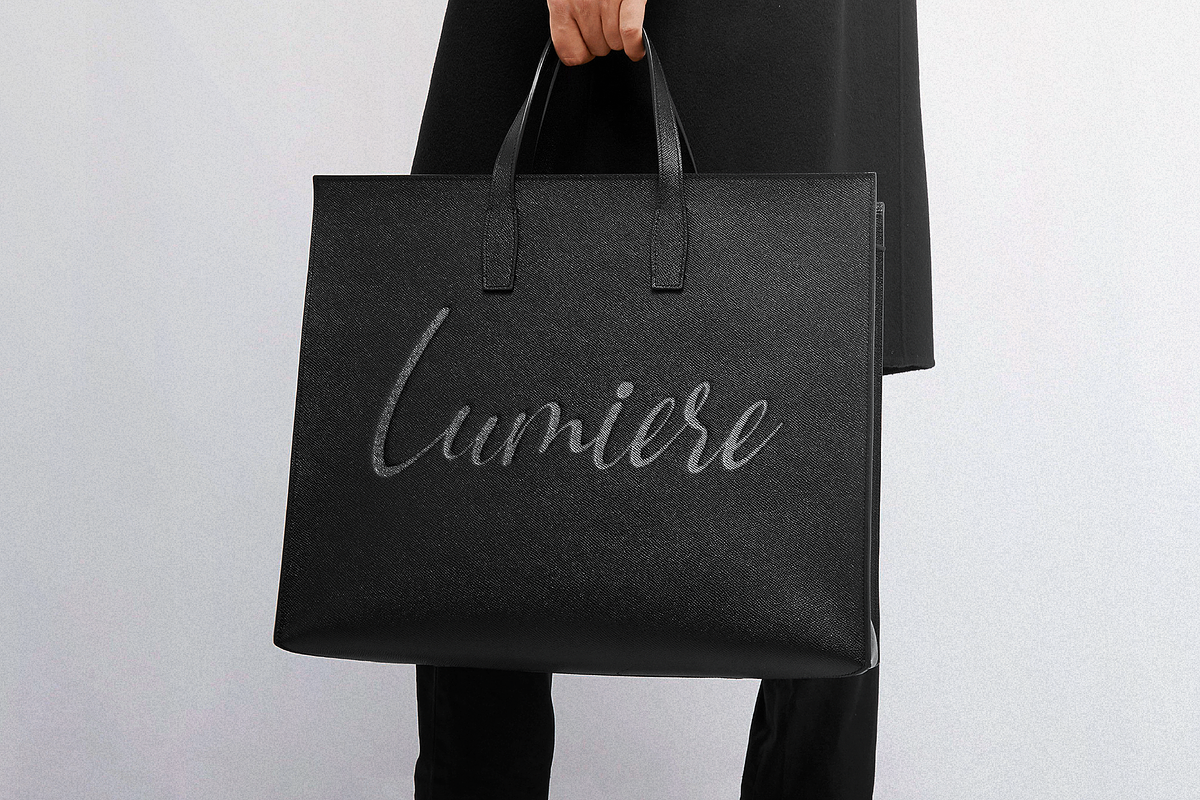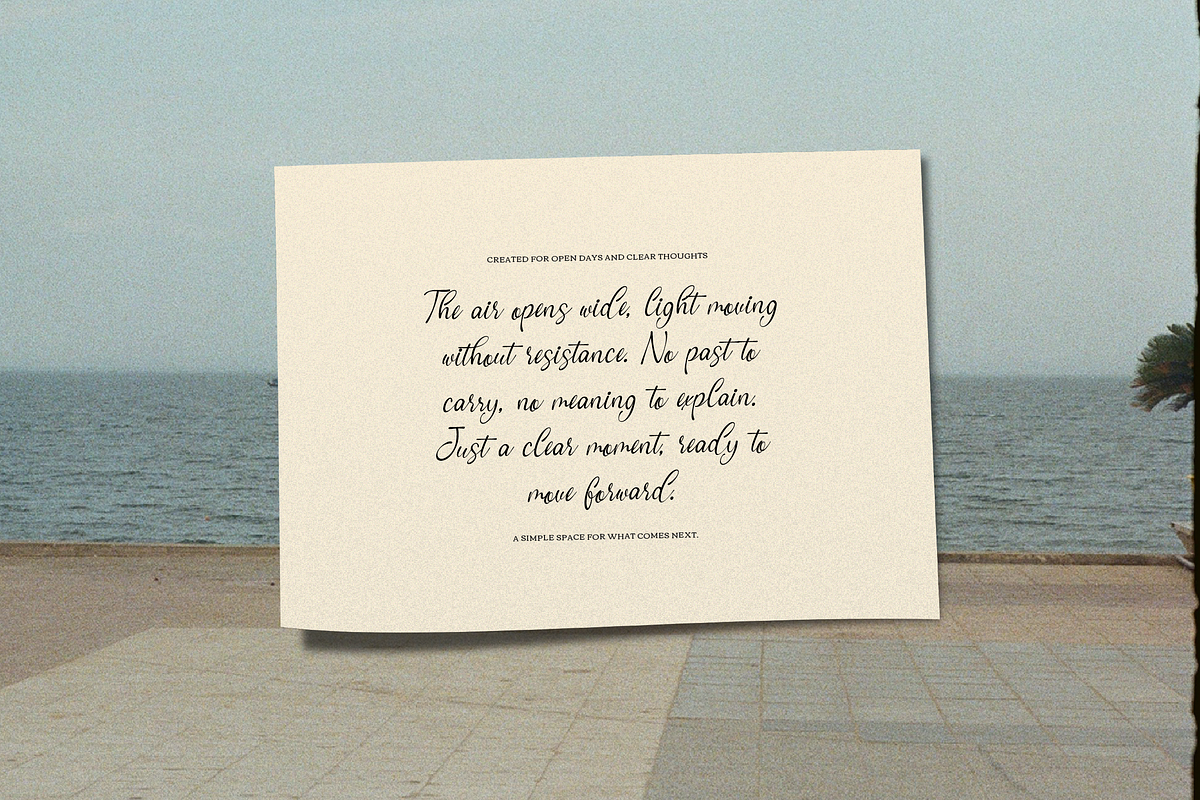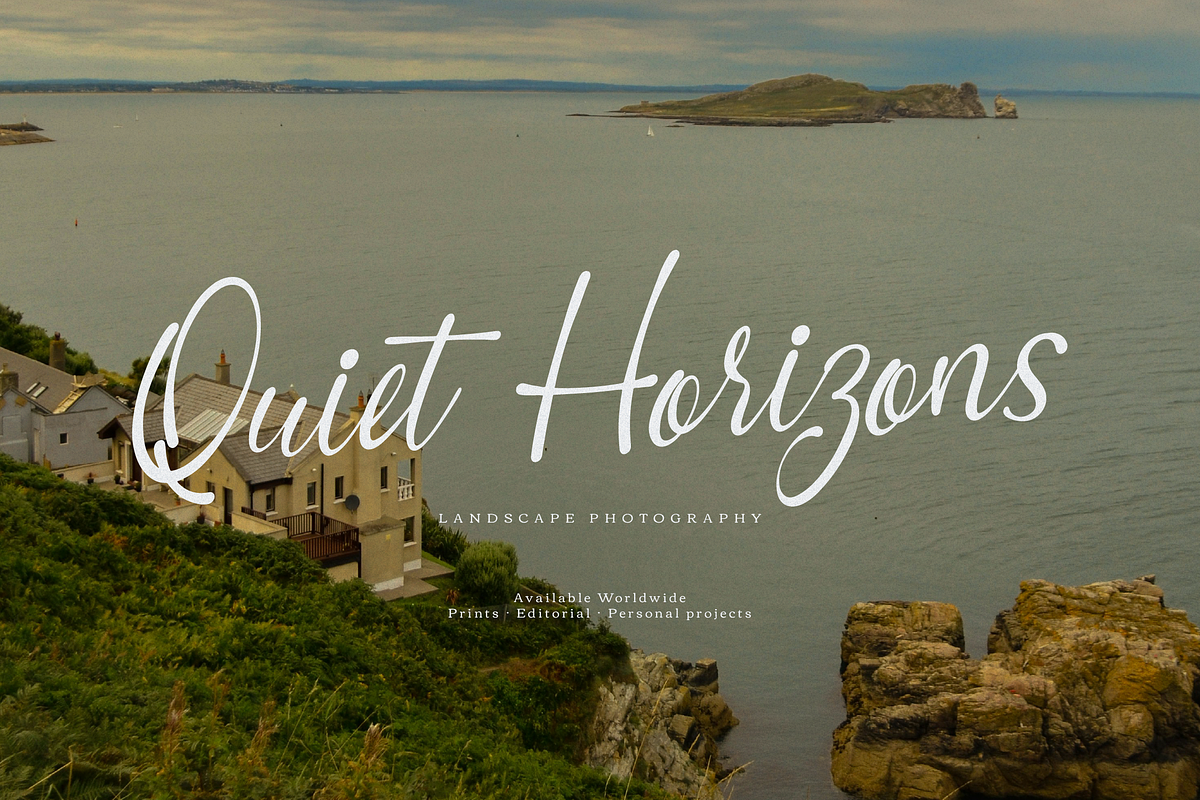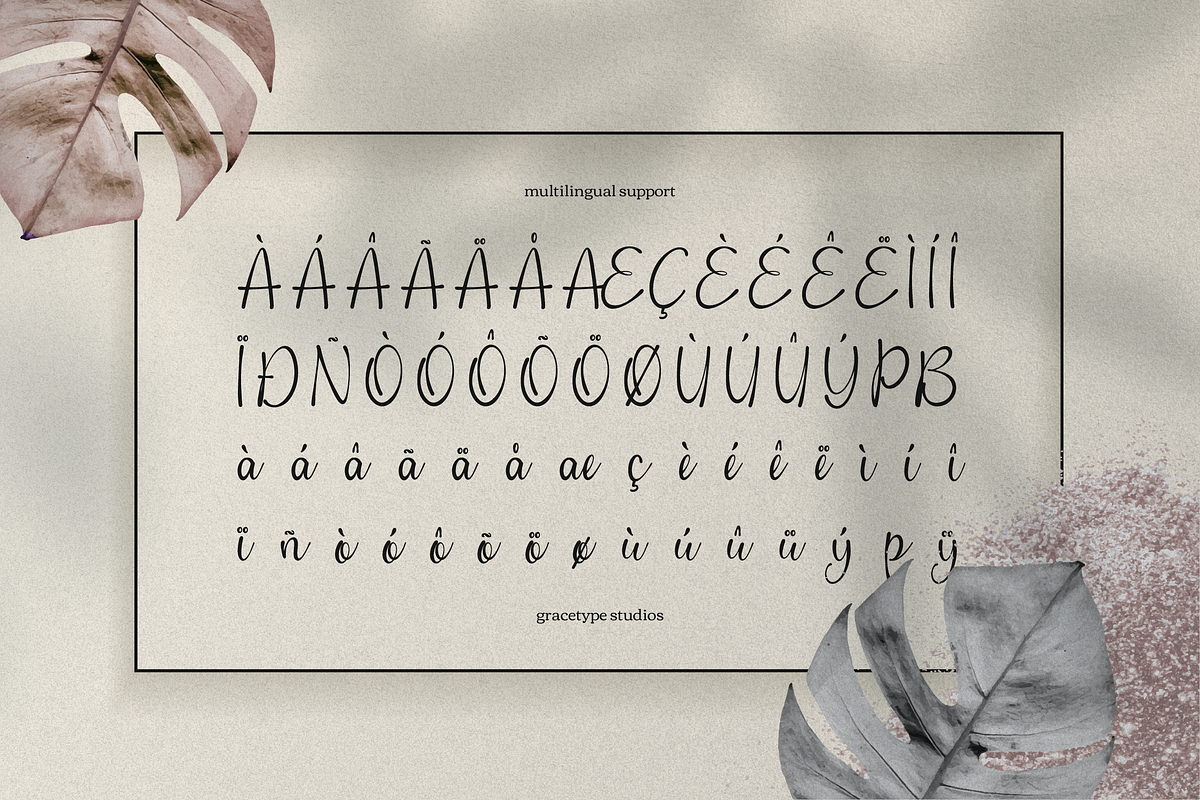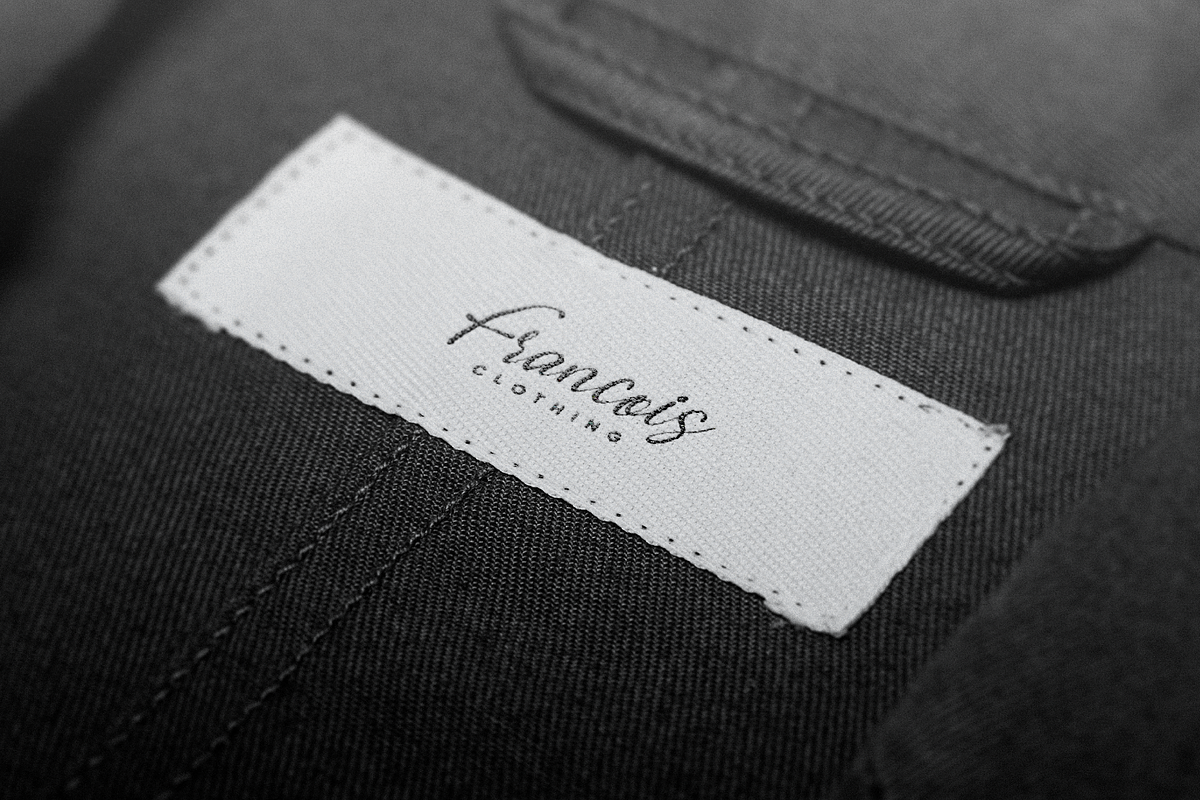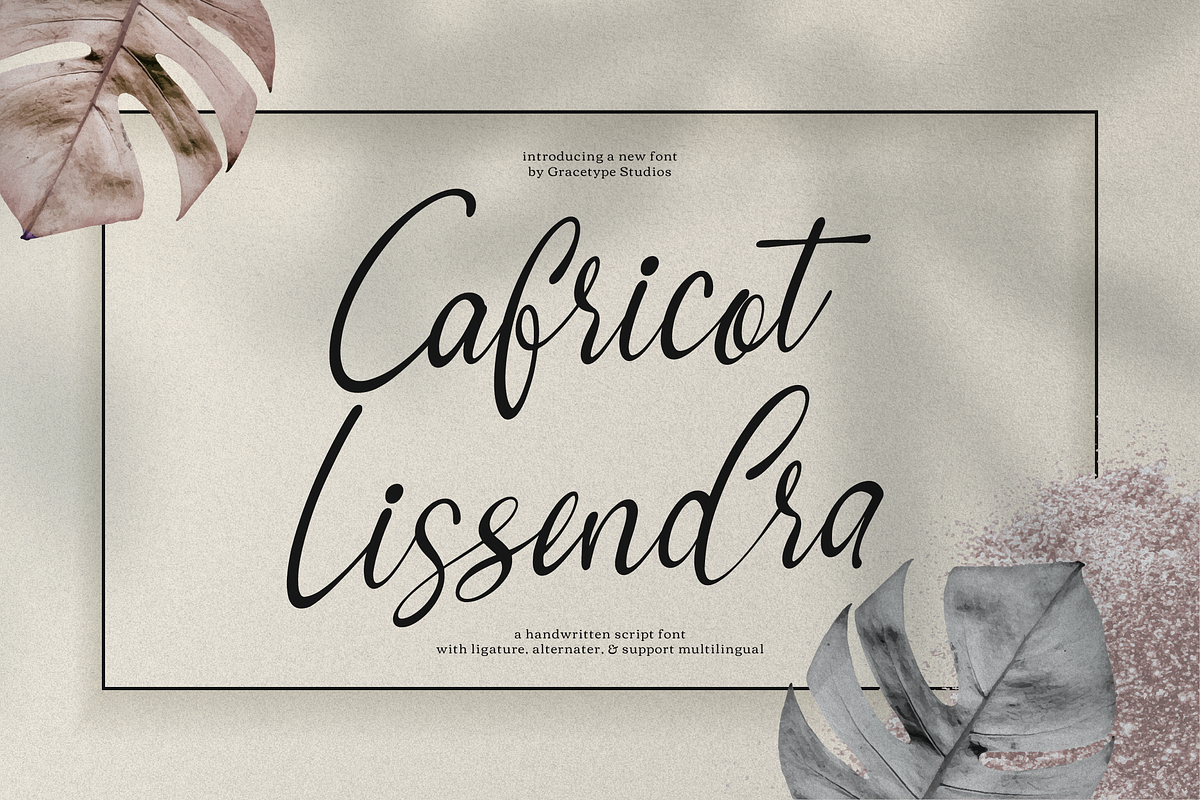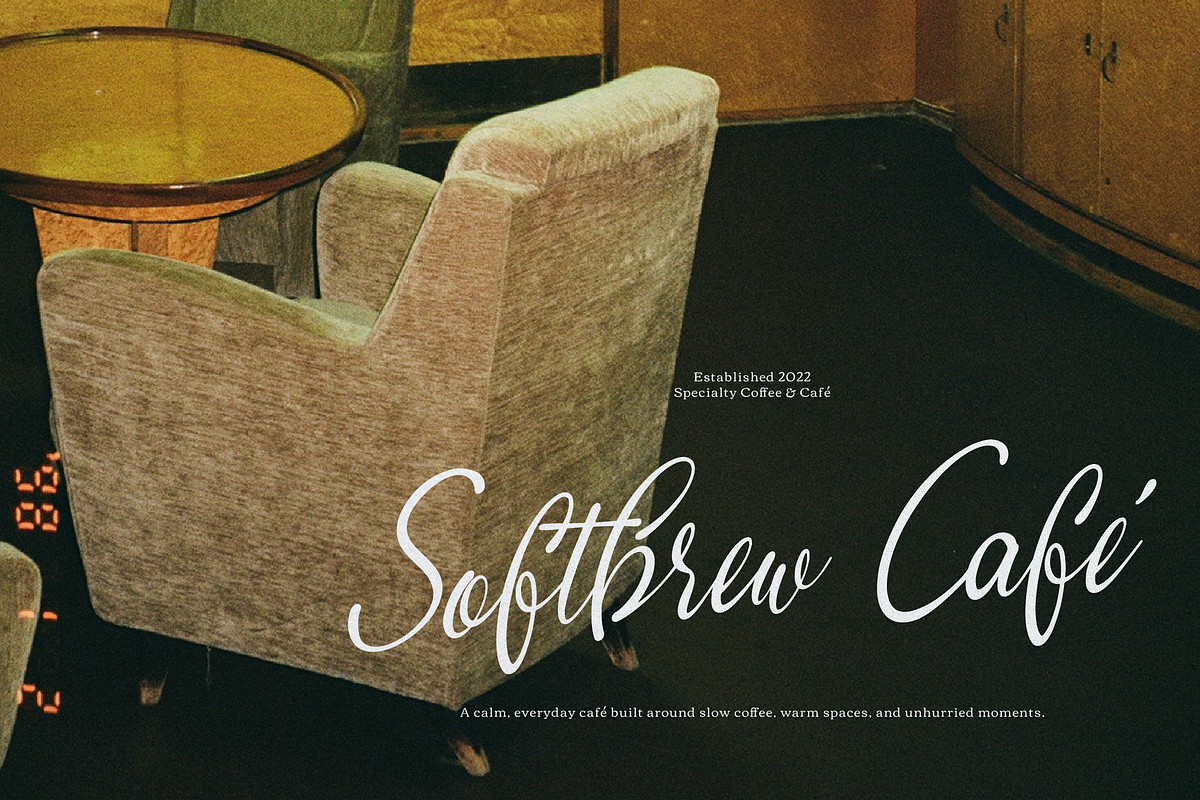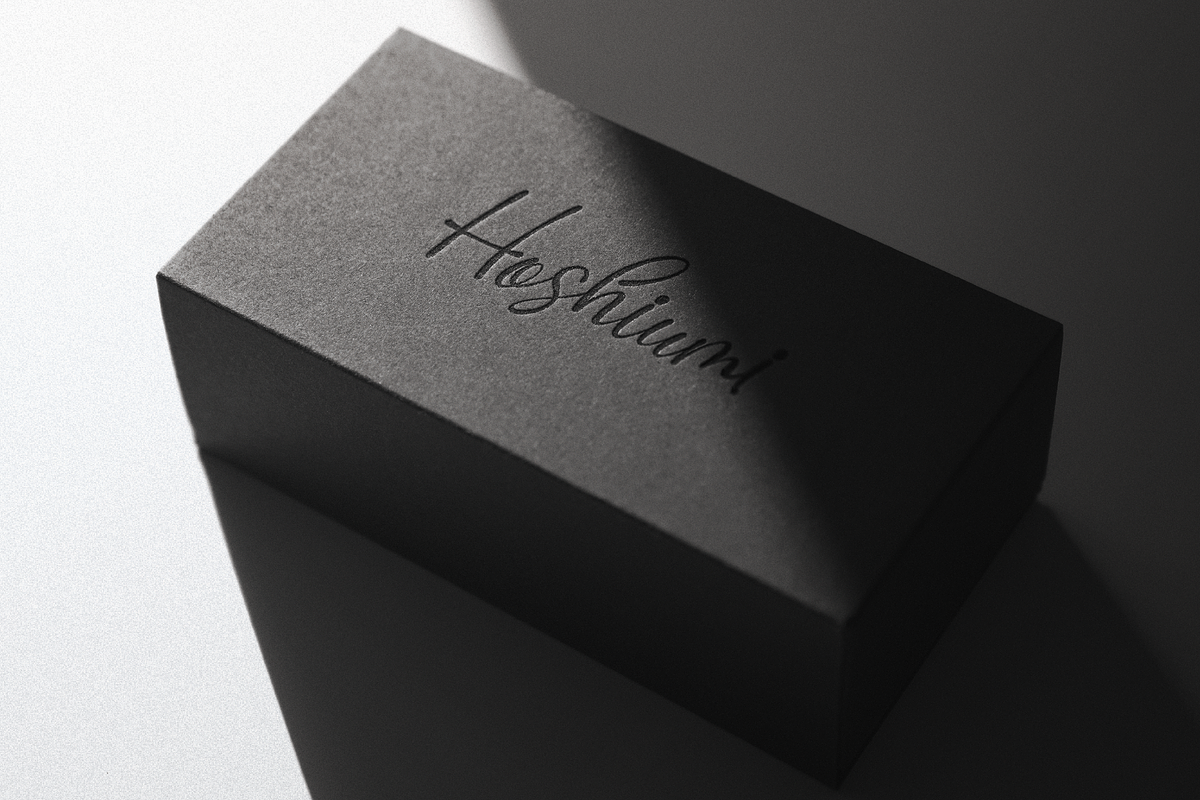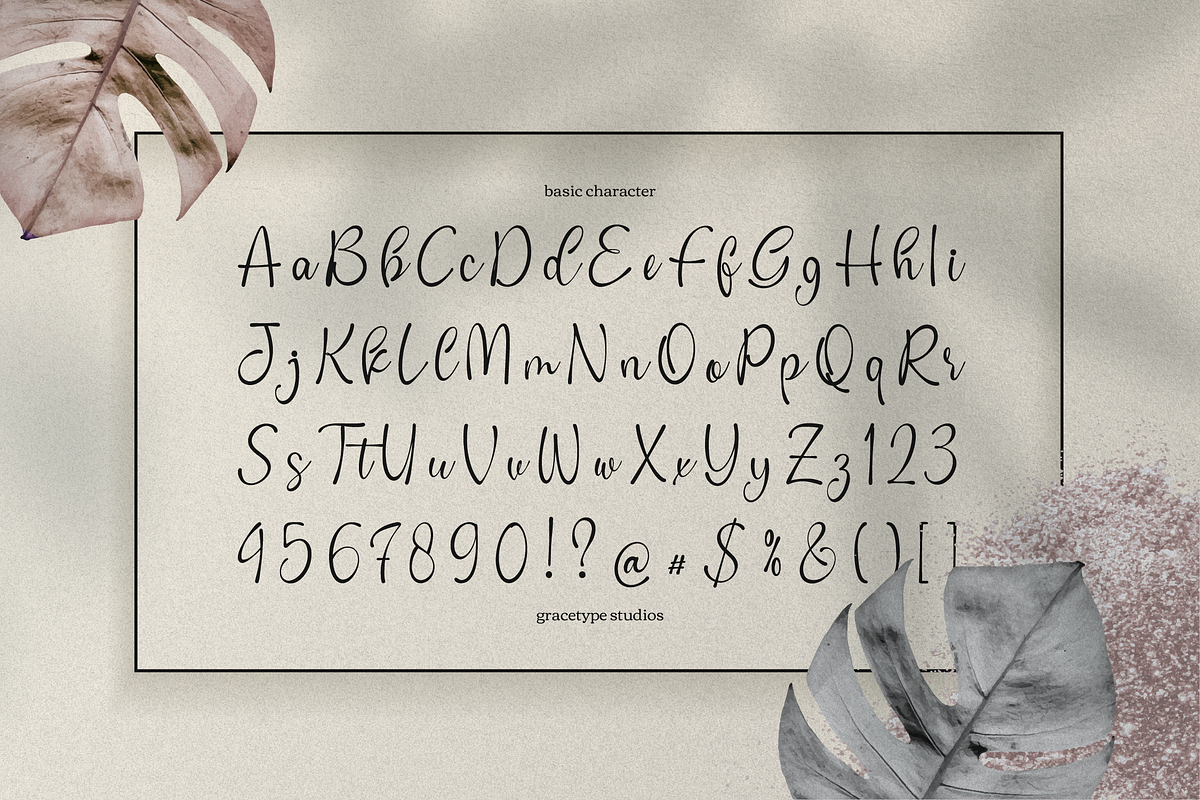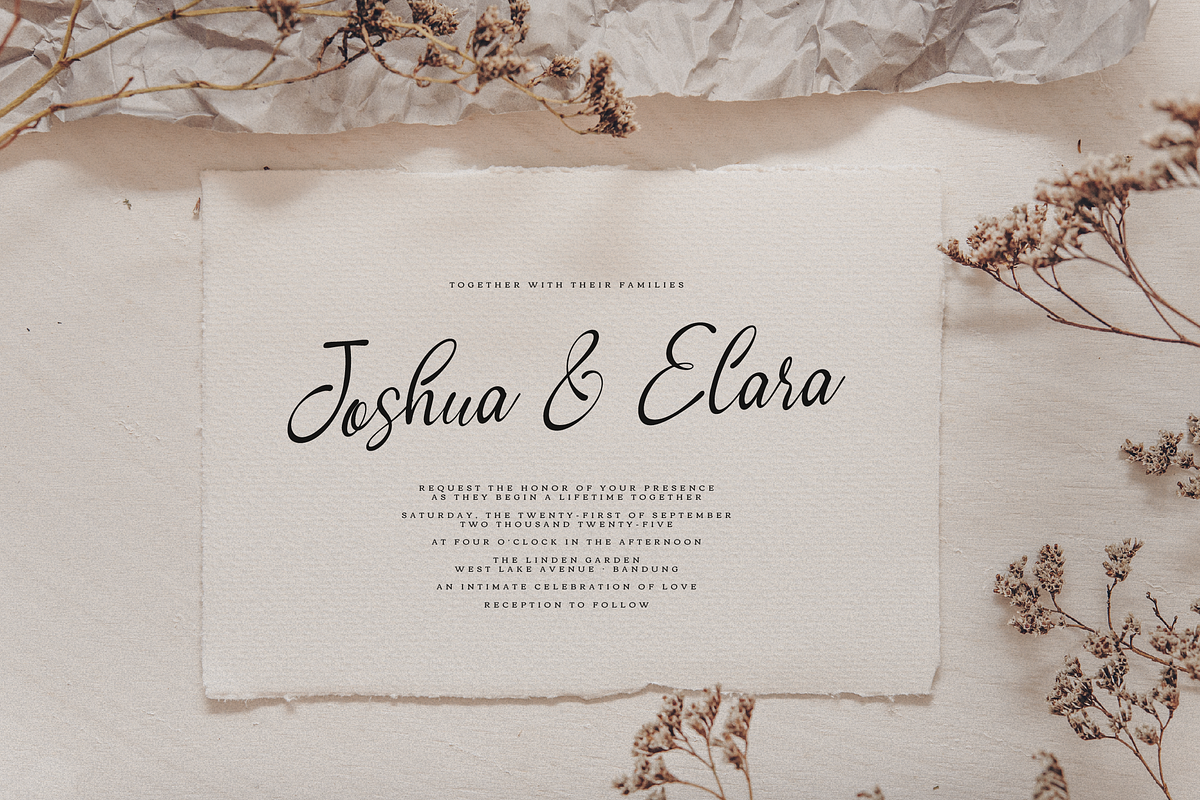
Cafricot Lissendra Script
Cafricot Lissendra | Script Handwritten, from Gracetypestudio, suitable for any projects such as: logos, branding projects, homeware designs, product packaging, mugs, quotes, posters, shopping bags, t-shirts, book covers, name card, invitation cards, greeting cards, label, photography, watermark, special events, and all your other lovely projects that need a Script taste.